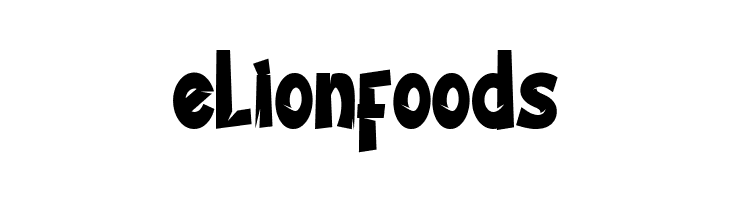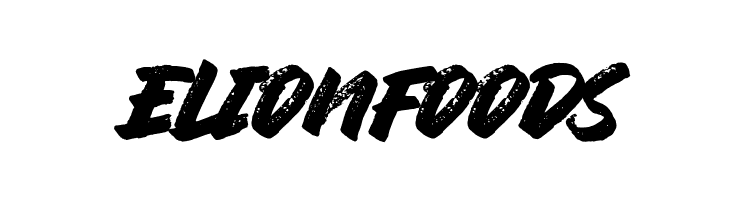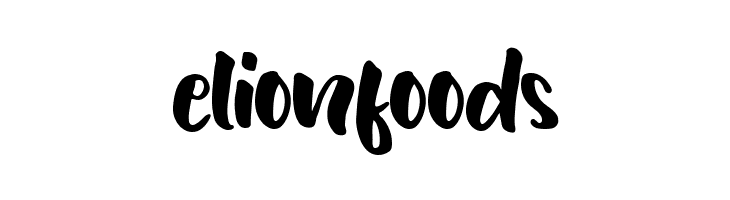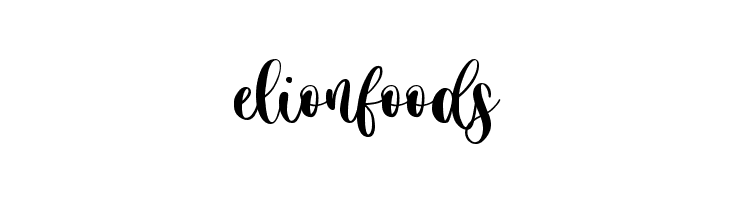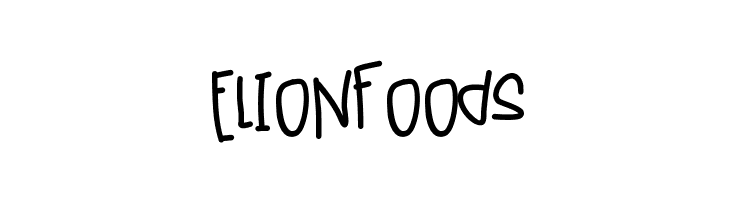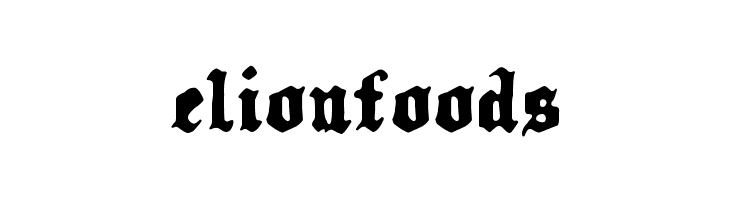
• Junegull-Regular
A bold, rounded font with smooth curves and uniform strokes.
• JunesPluto
A playful handwritten font with bold strokes and medium contrast.
• Junette DEMO Regular
A bold, playful handwritten font with rounded characters.
• Jungle Bloods
A bold, textured brush script font with a dynamic and artistic style.
• Jungle Zone
A bold, playful font with exaggerated curves and a lively, dynamic style.
• Just an Outty
A playful, hand-drawn outlined font with a whimsical and creative style.
• Just Overthink
A lively and flowing script font with elegant, interconnected letters.
• Just Skinny
A whimsical, hand-drawn font with thin, elongated letterforms.
• JustQuick
A bold, dynamic font with a 3D shadow effect and playful structure.
• Kalmari
A bold, blackletter-style font with ornate flourishes and strong, angular strokes.